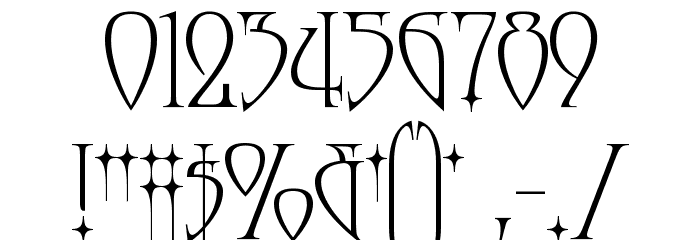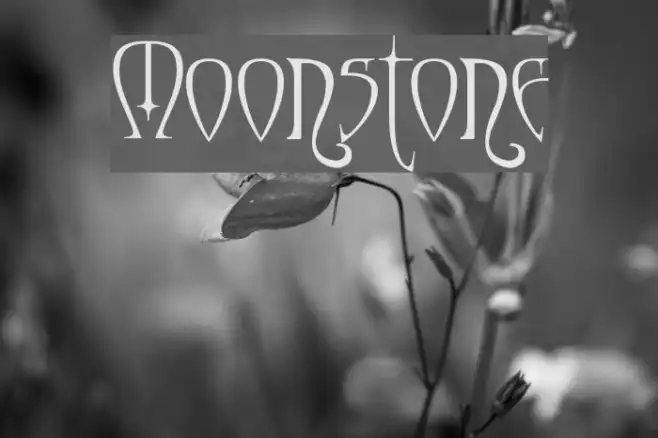
Moonstone Font
This font features a unique and artistic design with elongated and sharp serifs that give it a mystical and elegant appearance. The characters are tall and slender, with a distinct angularity that adds a sense of drama and sophistication. The uppercase letters have a striking presence, while the lowercase letters maintain a consistent style with slightly more curves. The numerals are equally stylized, matching the overall aesthetic. Special characters are creatively designed, incorporating star-like elements that enhance the font's decorative quality. This font is perfect for projects that require a touch of fantasy or elegance.
An artistic and elegant font with elongated serifs and angular design.
- Proposed Projects: Ideal for fantasy book covers, mystical event invitations, or elegant branding materials.